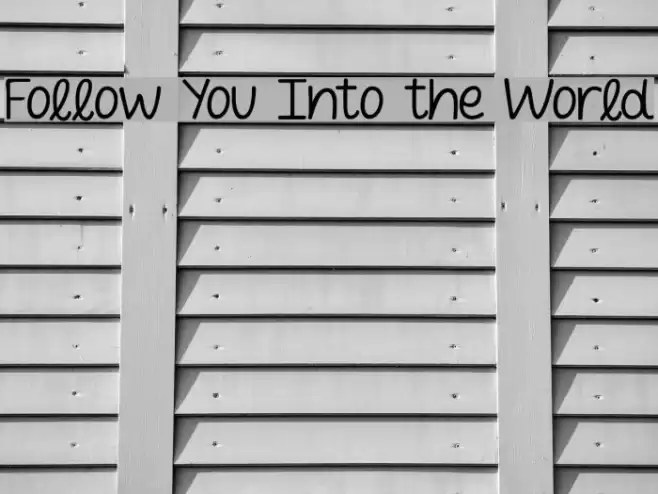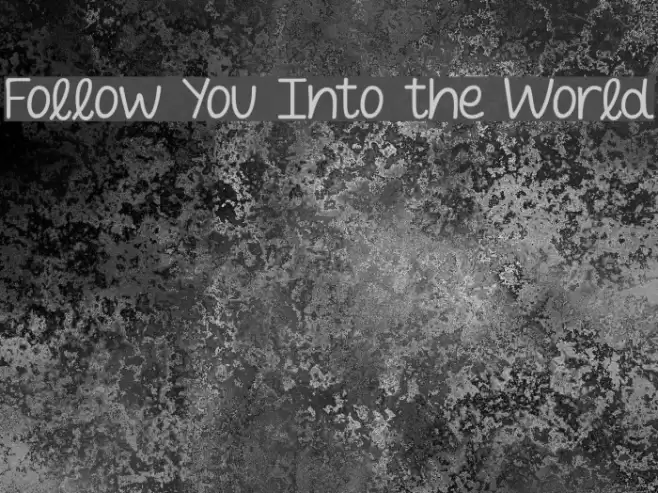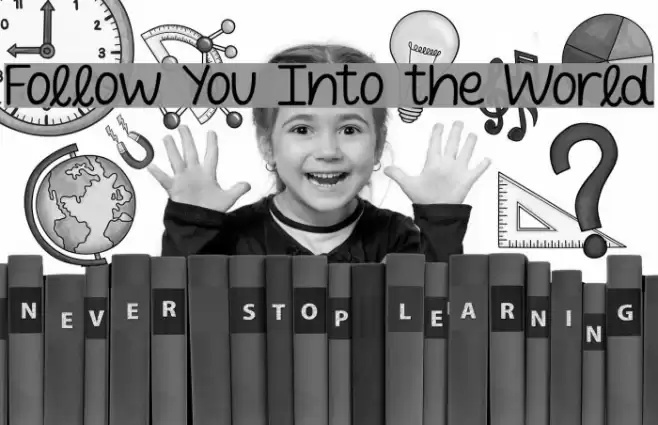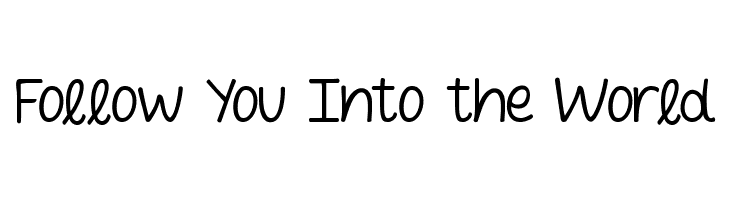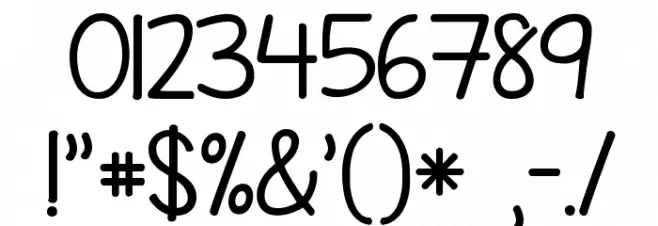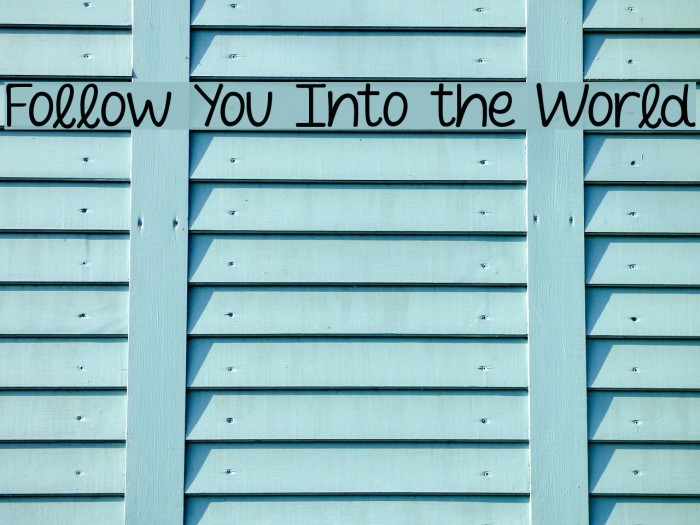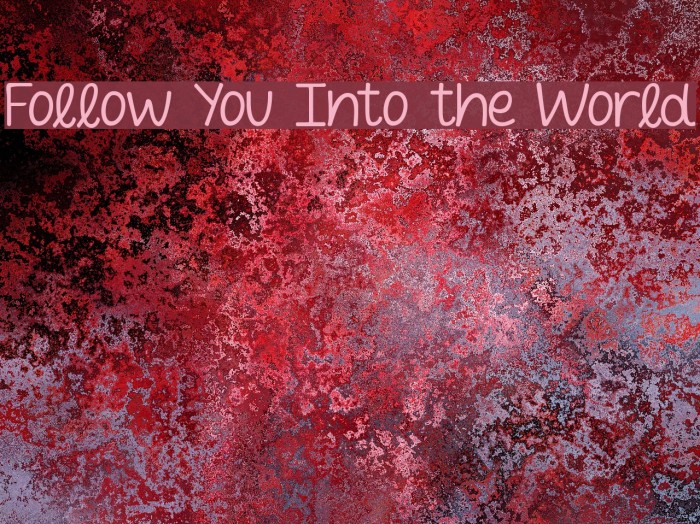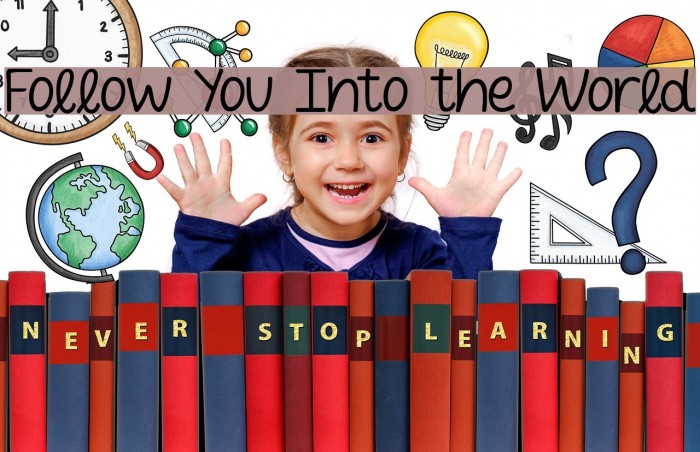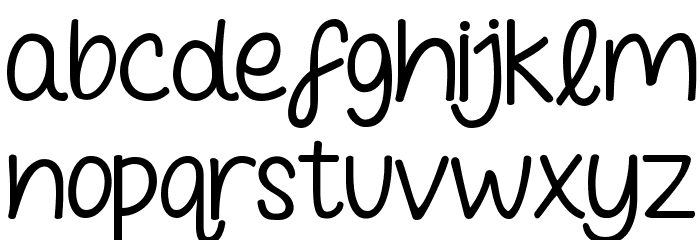
Follow You Into the World Font
Follow You Into the World Description
This playful and whimsical font features rounded, smooth strokes that give it a friendly and approachable appearance. The characters are slightly slanted, adding a dynamic and lively feel. Uppercase letters are bold and prominent, while lowercase letters maintain a consistent flow with gentle curves. The numbers are clear and easy to read, matching the overall style of the alphabet. Special characters are well-integrated, maintaining the font's cohesive look. This font's informal and casual style makes it suitable for projects that require a personal touch.
A playful, rounded font with smooth strokes and a friendly, approachable style from Uncategorized fonts.
- Proposed Projects: Ideal for children's books, greeting cards, playful branding, and social media graphics.
- Overall Style: Casual, Playful
- Use Case: Headlines, Informal text, Branding